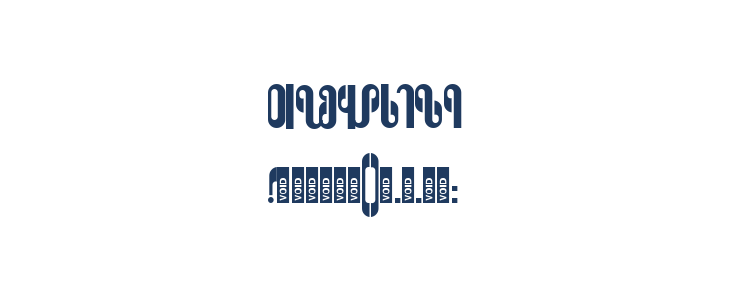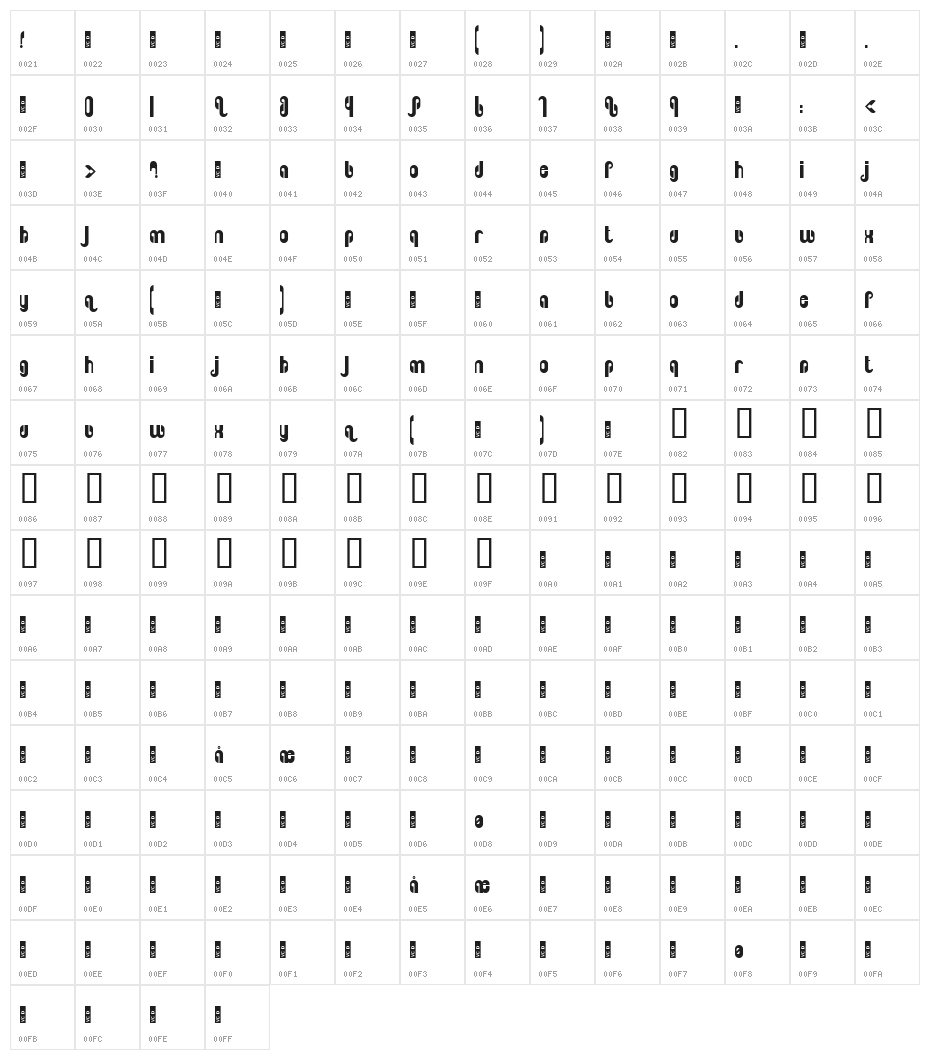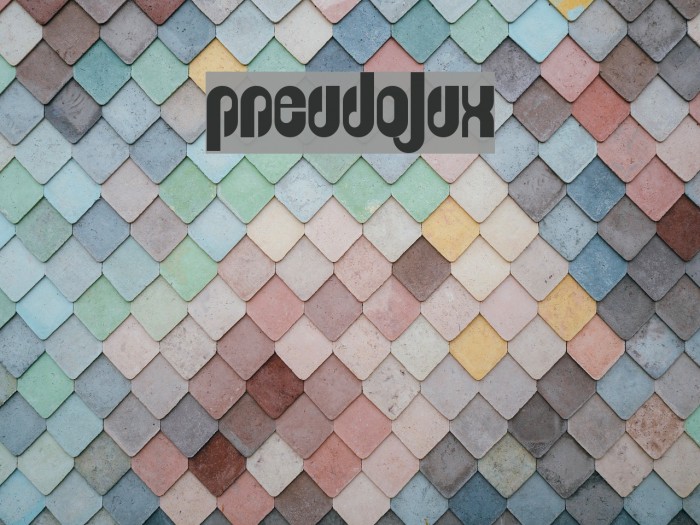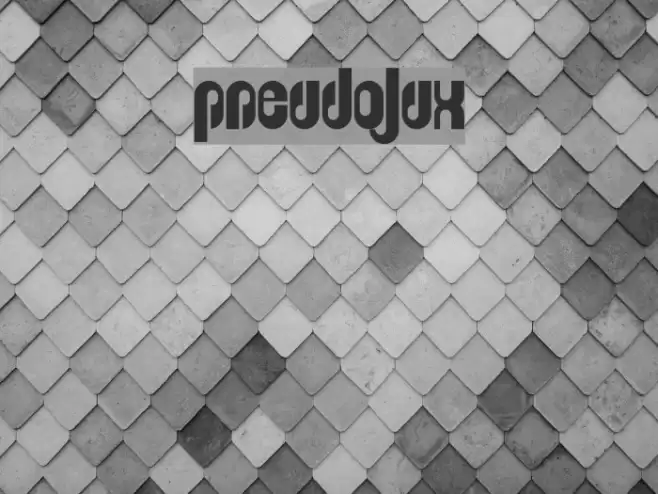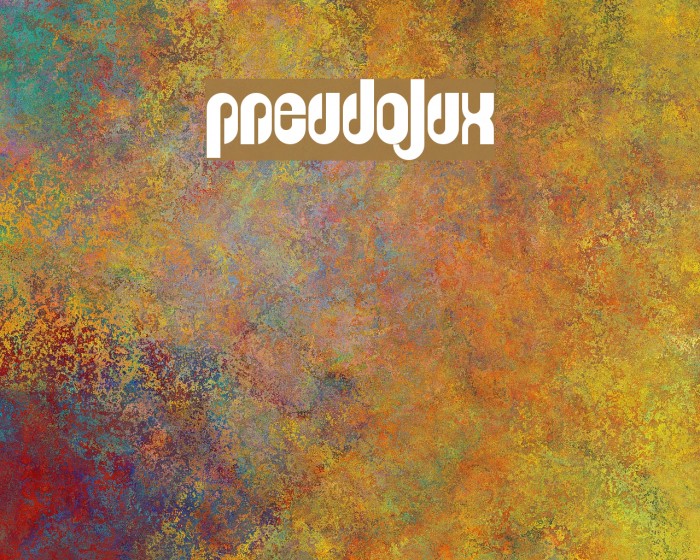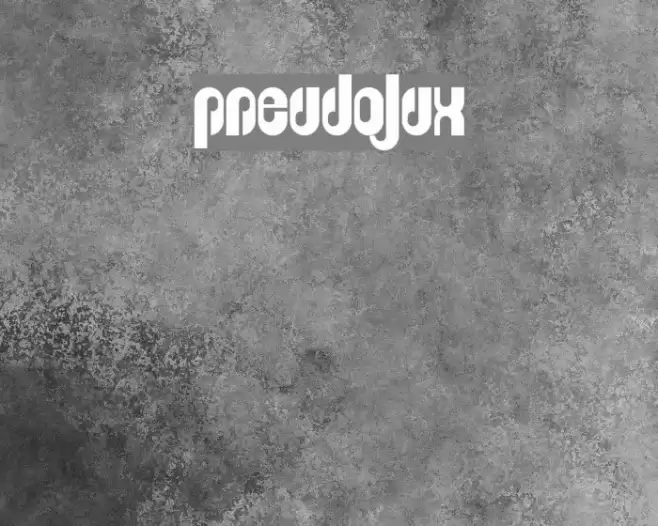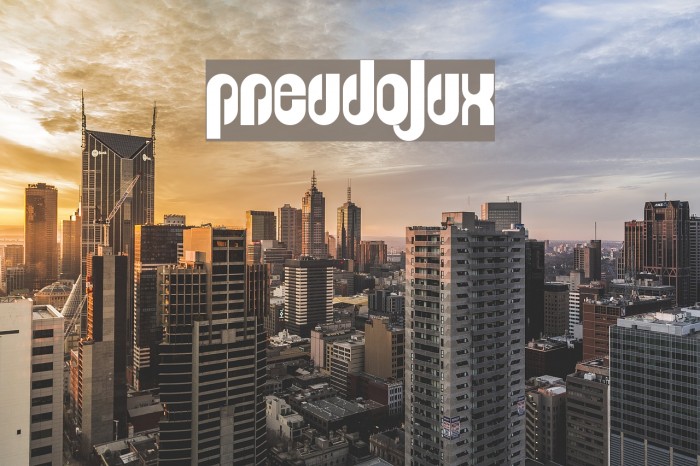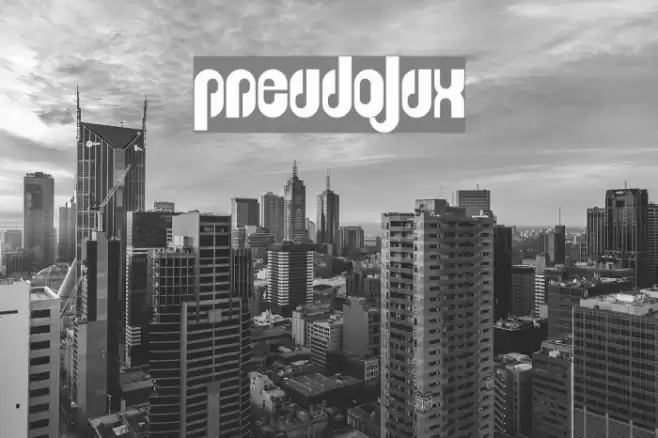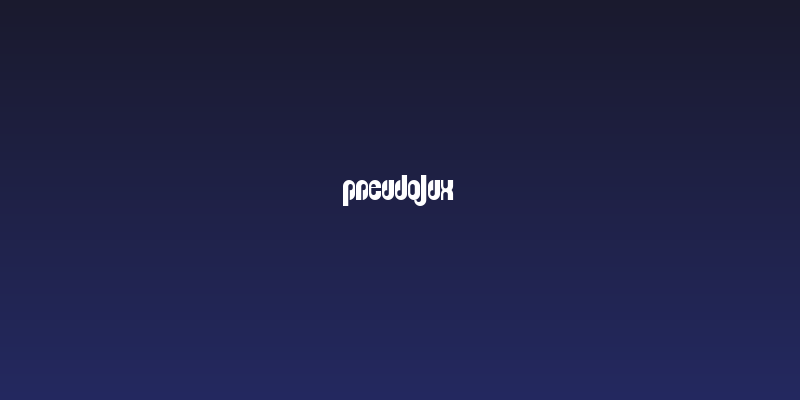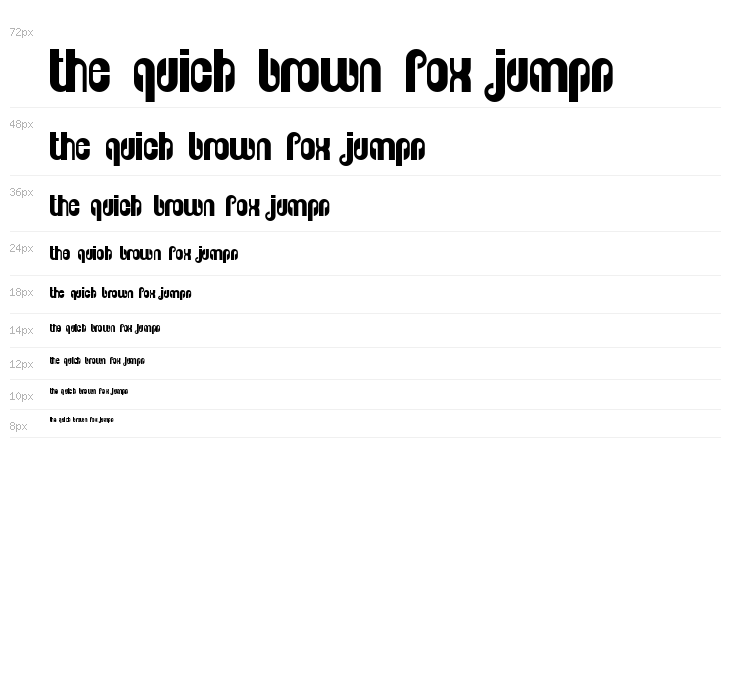
Pseudolux Font
Pseudolux Description
This font features a bold and modern design with a unique, futuristic flair. The characters are rounded with a consistent stroke width, creating a smooth and cohesive appearance. The uppercase and lowercase letters maintain a uniform height, contributing to a clean and structured look. The numbers and special characters follow the same design principles, ensuring harmony across all glyphs. The font's style is both eye-catching and legible, making it suitable for various creative applications.
| Proposed Projects | Ideal for branding, posters, digital artwork, and any project requiring a modern and distinctive typeface. |